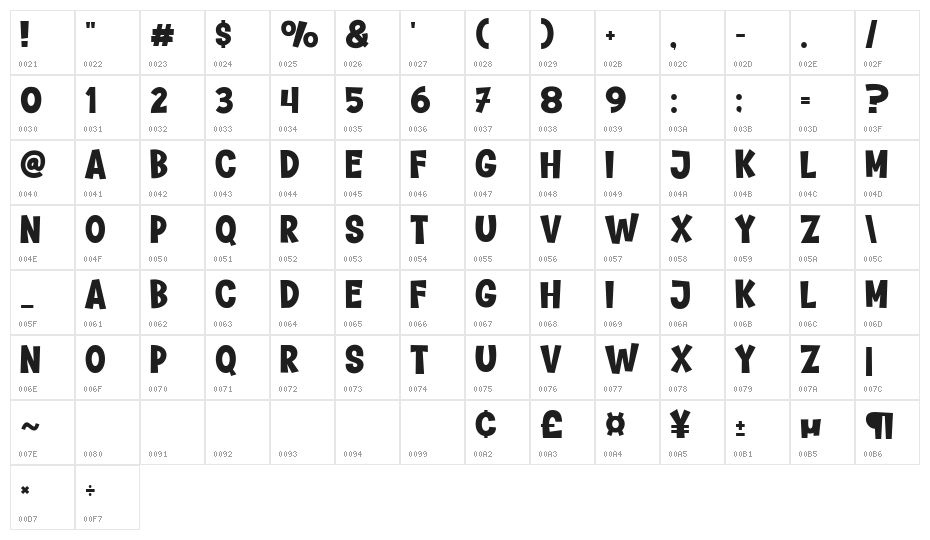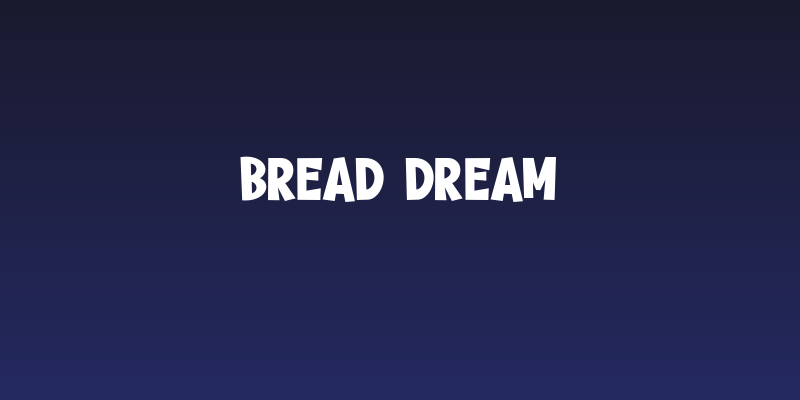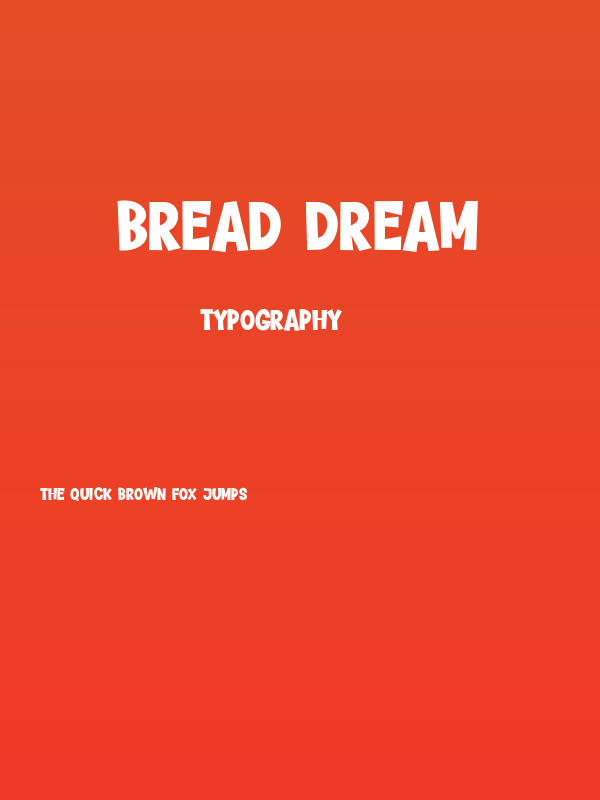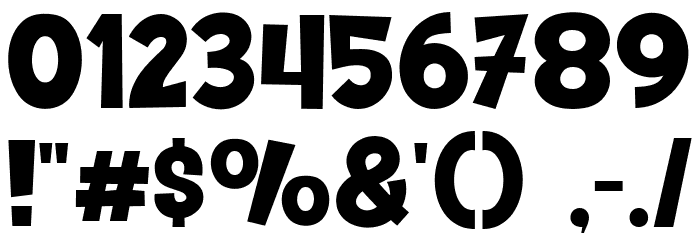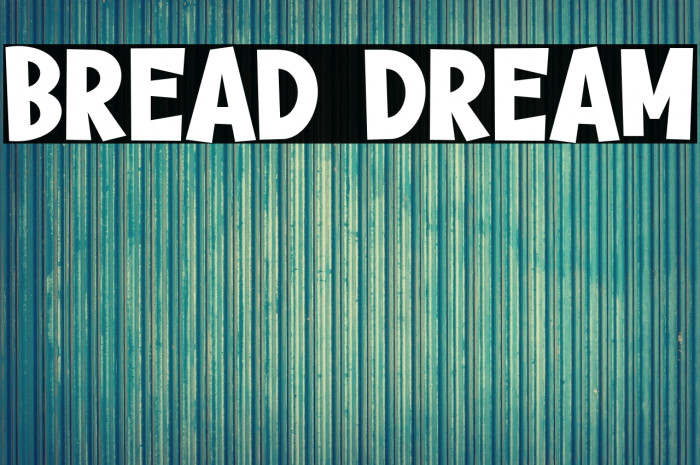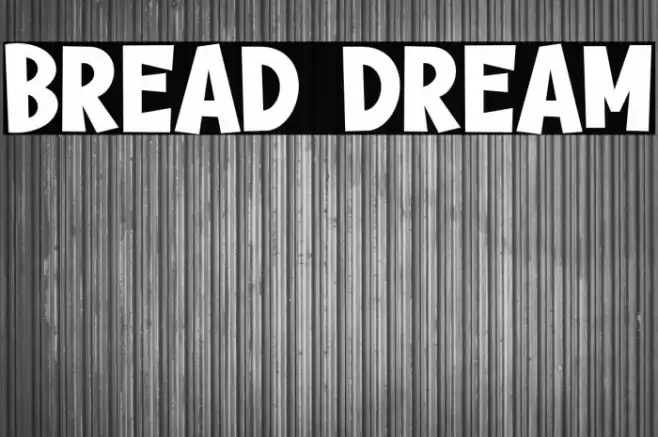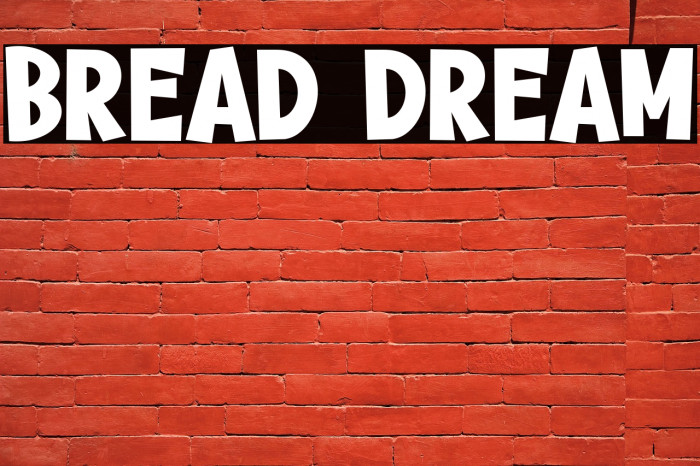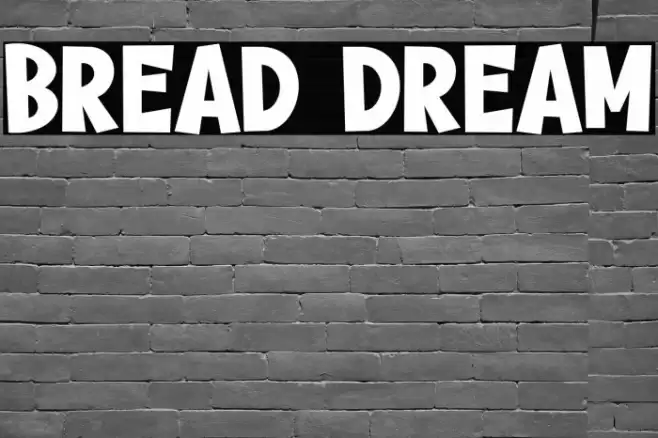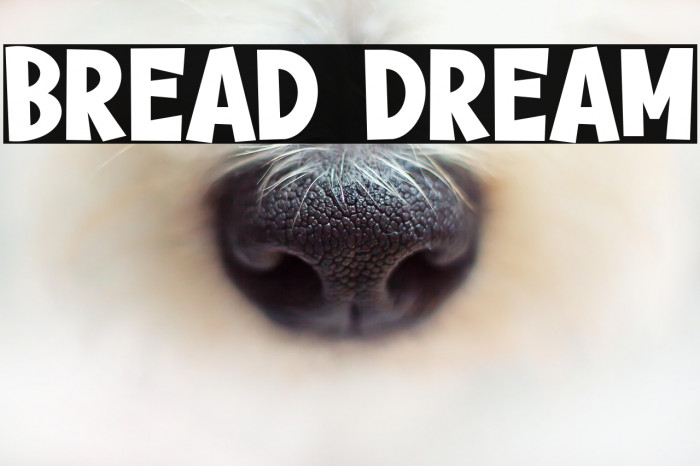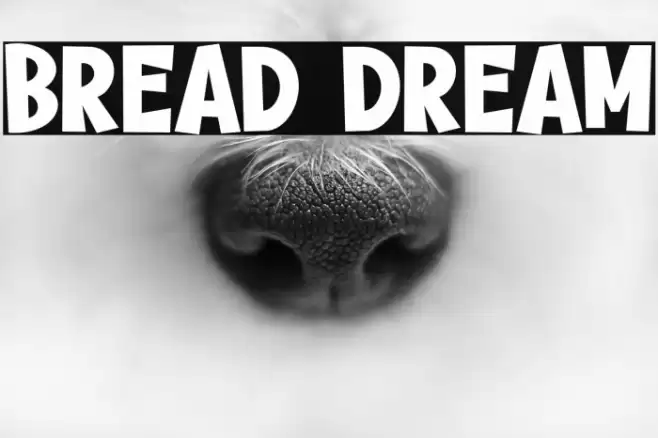
Bread Dream Font
Bread Dream Description
This font features bold, playful characters with a slightly irregular and whimsical design. The letters are thick and rounded, giving them a friendly and approachable appearance. The uppercase and lowercase letters maintain a consistent style, with exaggerated curves and a slight tilt that adds to the font's dynamic feel. The numbers and special characters follow the same playful aesthetic, making the font suitable for creative and informal applications. Its boldness ensures high visibility, while the unique character shapes provide a distinctive look.
| Overall Style | Playful, Whimsical |
| Proposed Projects | Ideal for children's books, playful branding, posters, and creative social media graphics. |